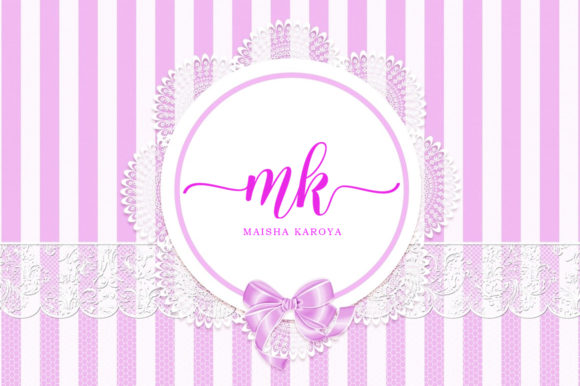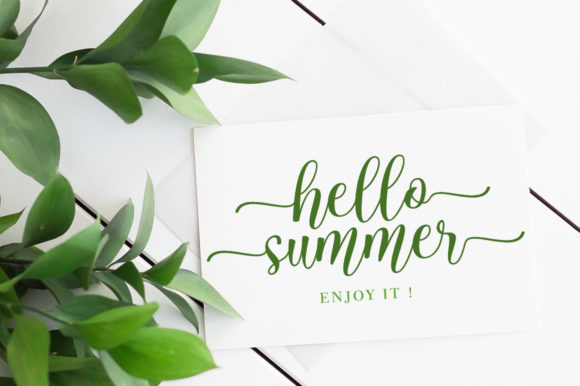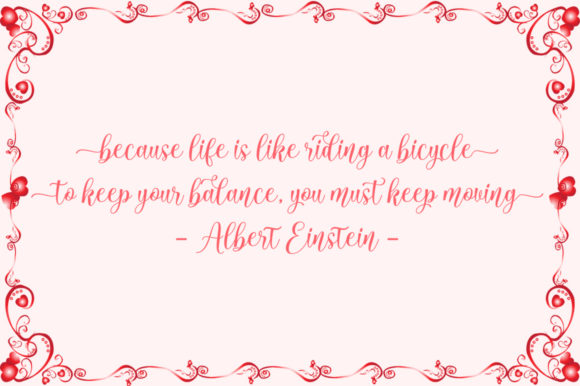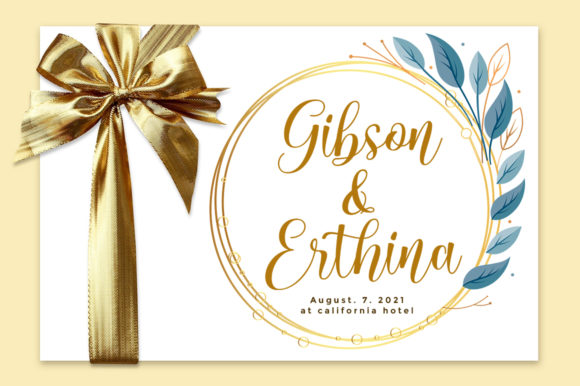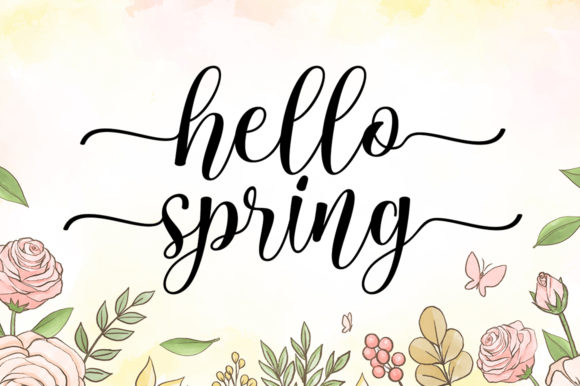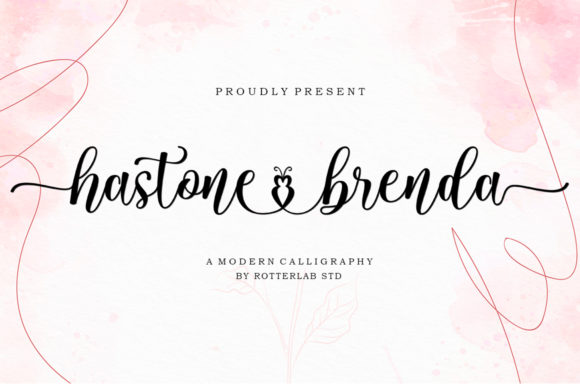
Introduction to Hastone Brenda Font
Hastone Brenda feels flowing and elegant.
It looks beautiful on wedding invitations, thank you cards, quotes, greeting cards, logos, business cards and every other design which needs a handwritten touch This font is PUA encoded which means you can access all of the glyphs and swashes with ease.